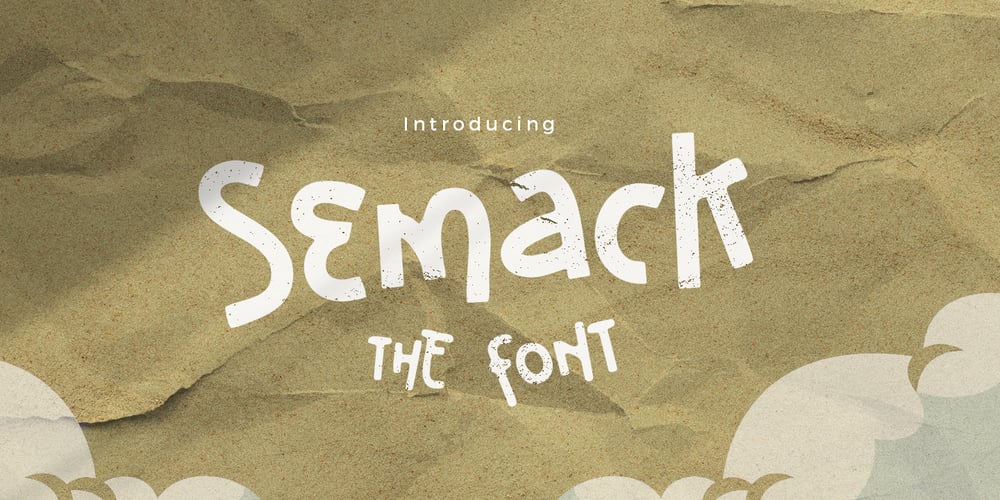
Semack Font Family was designed by Jarnawi Saja and published by Grontype. Semack contains 2 styles and family package options. Semack is a distinctive and captivating handwriting font that adds a touch of personality and flair to any project. Crafted with meticulous attention to detail, Semack offers both a regular and blur type variant, providing versatility and creative possibilities.The regular variant of Semack boasts clean lines and fluid strokes, offering clarity and legibility while maintaining its handwritten charm. Meanwhile, the blur type variant adds an intriguing element of softness and subtlety, creating a dreamy and ethereal effect that enhances the visual appeal of your text.Whether you’re designing posters, greeting cards, or digital artwork, Semack elevates your typography with its one-of-a-kind aesthetic, breathing life and personality into every word. Embrace the whimsical charm of Semack font and let your creativity flourish.Features : Basic Latin Glyphs Multilingual Numeral and Punctuation Currencies Standard Ligatures Stylistic Alternates Thankyou for picking up this font, hope you enjoy it.